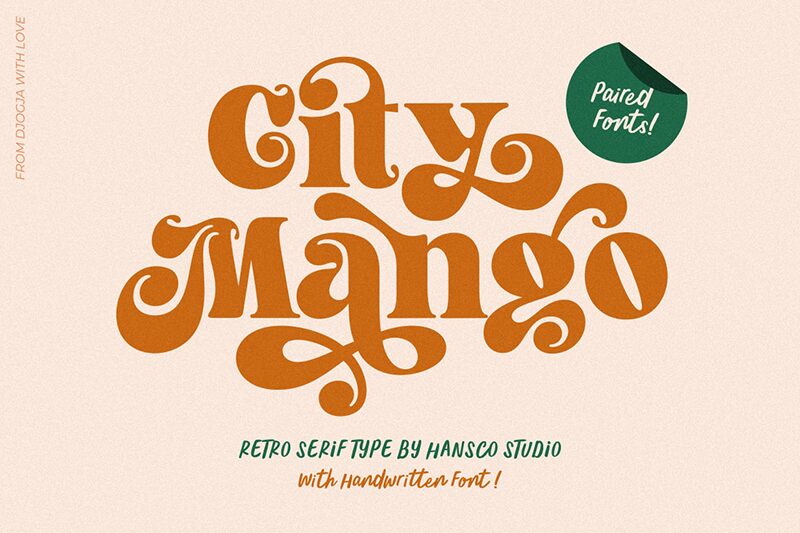
City Mango
City Mango font is a bold retro display font designed by HansCo. This free decorative typeface draws inspiration from whimsical design elements often associated with vintage aesthetics. The result is an ornate and artistic flair that’s immediately eye-catching and unique.
Maximize the potential of City Mango in a vintage branding project such as logos, product labels, or sticker designs. Equally fun and interesting are its uses for poster titles, magazine headers, illustrations, and book covers. Furthermore, apply it to music album cover packaging or use it on websites alongside photos used for online newsletters or social media posts!